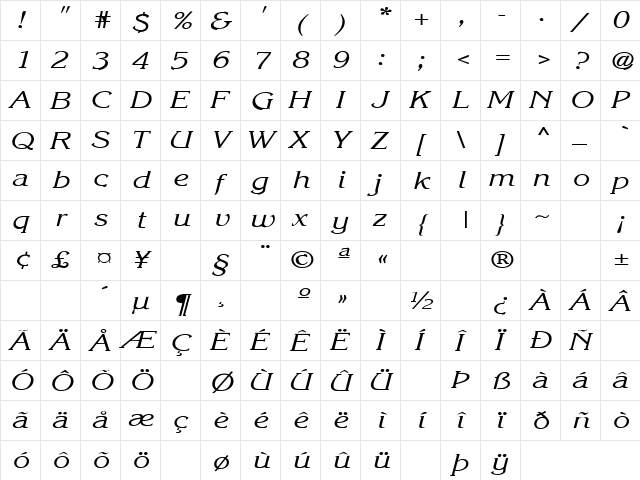
I Wanna Know Why 6 Regular
I Wanna Know Why 6 is a composed and adaptable typeface that performs quietly and consistently across a wide range of design contexts.